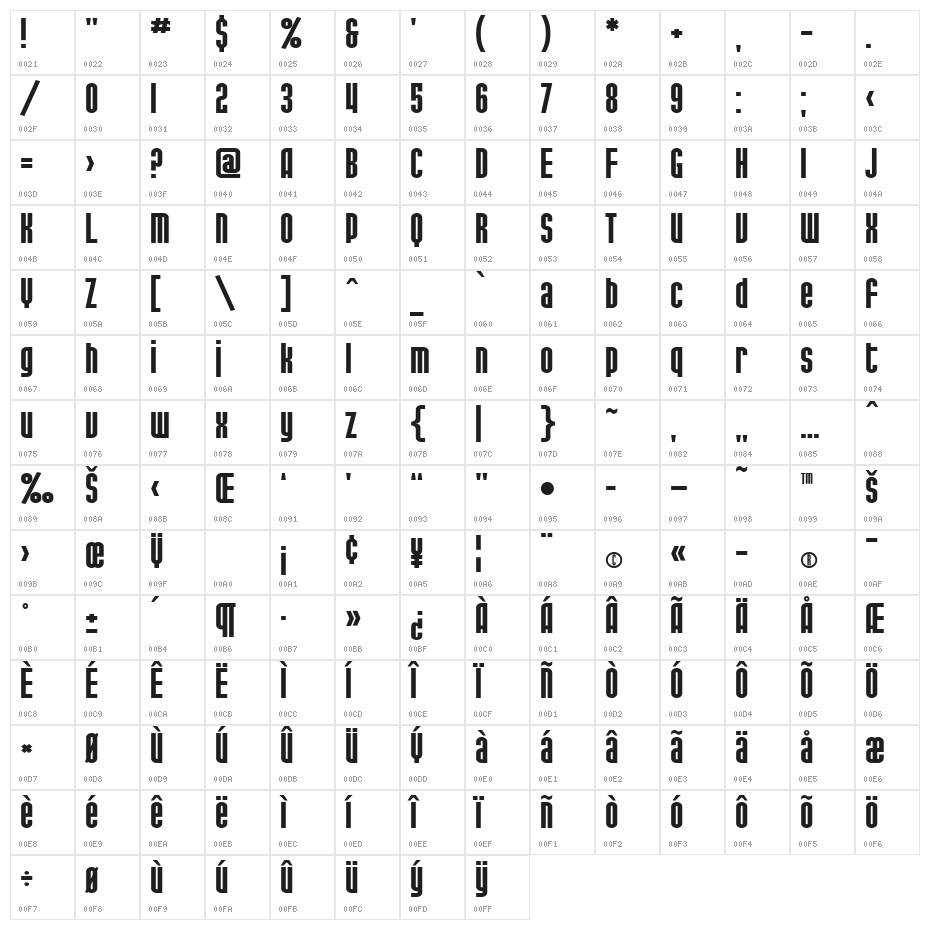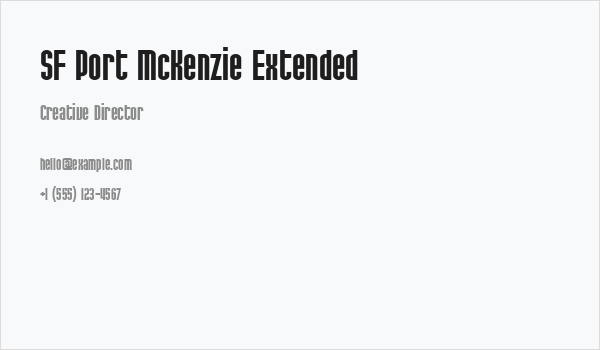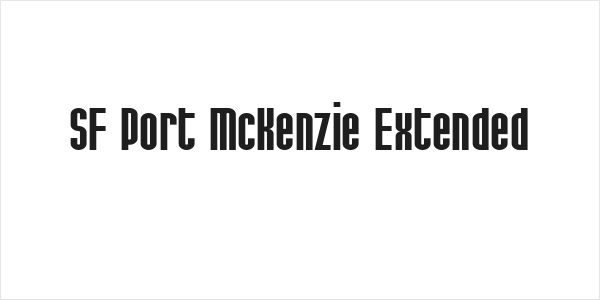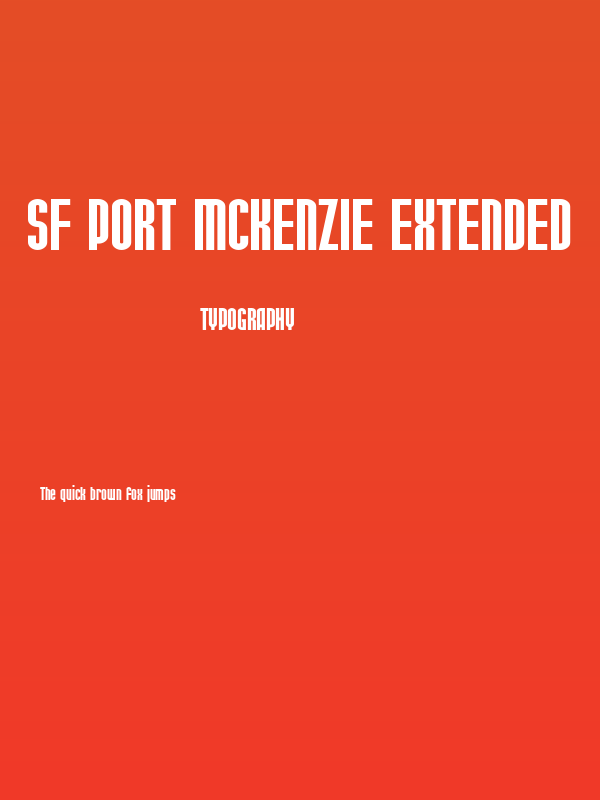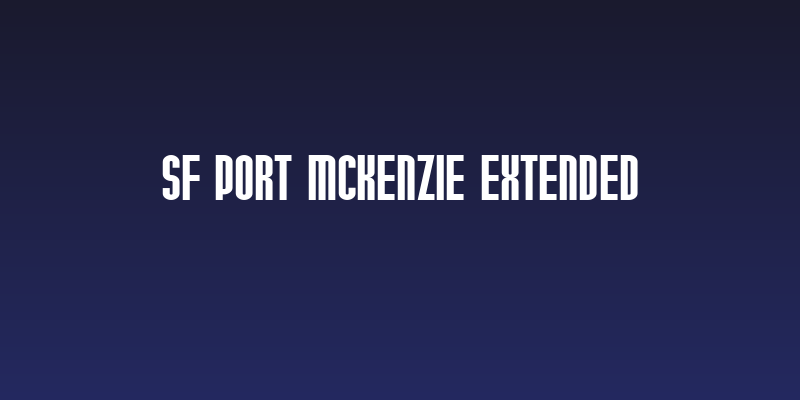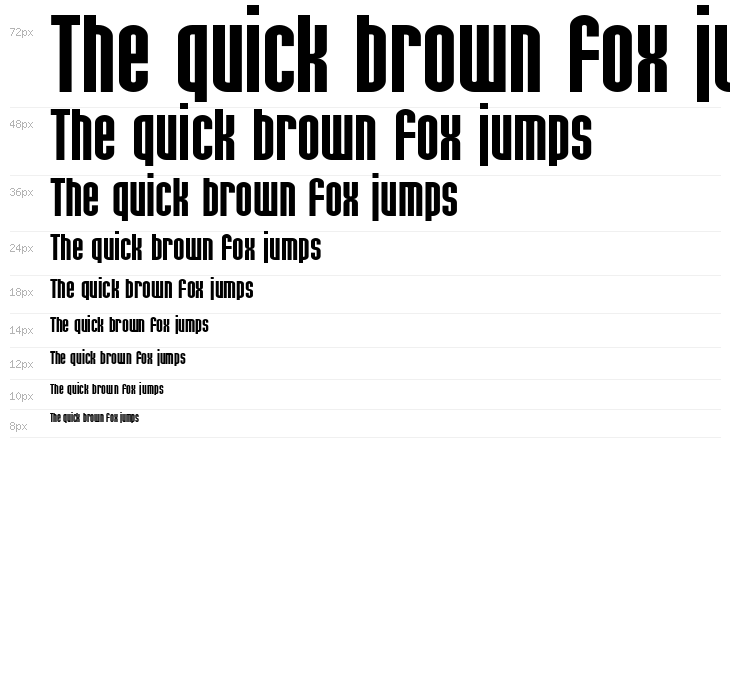
SF Port McKenzie Extended Font
SF Port McKenzie Extended Description
This typeface features a bold and extended design, characterized by its tall, narrow letters with a strong vertical emphasis. The uppercase and lowercase letters maintain a consistent height, contributing to a uniform appearance. The numerals and special characters are designed to match the overall boldness and width of the alphabet, ensuring a cohesive look across all characters. The font's clean lines and lack of serifs give it a modern and assertive feel, making it suitable for impactful headlines and attention-grabbing designs. Its extended width allows for a distinctive presence, while the consistent stroke weight provides a solid and stable appearance.
| Proposed Projects | Ideal for headlines, posters, branding, and any design requiring a strong visual impact. |